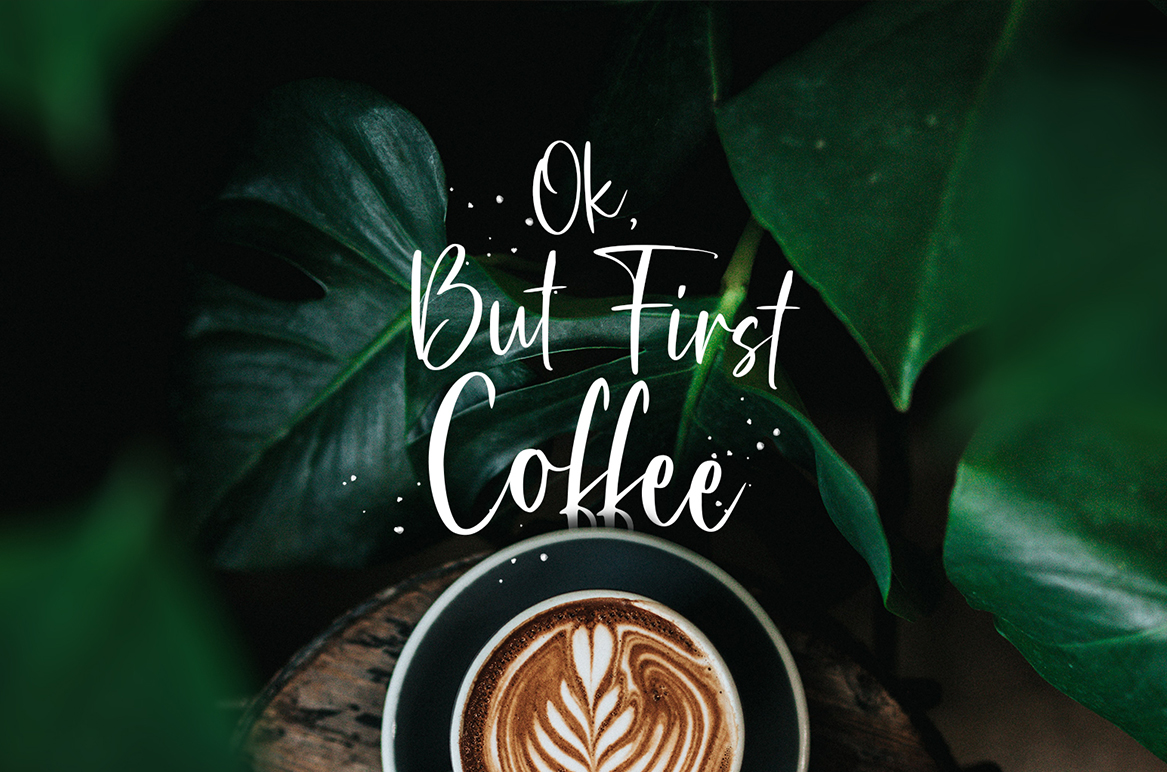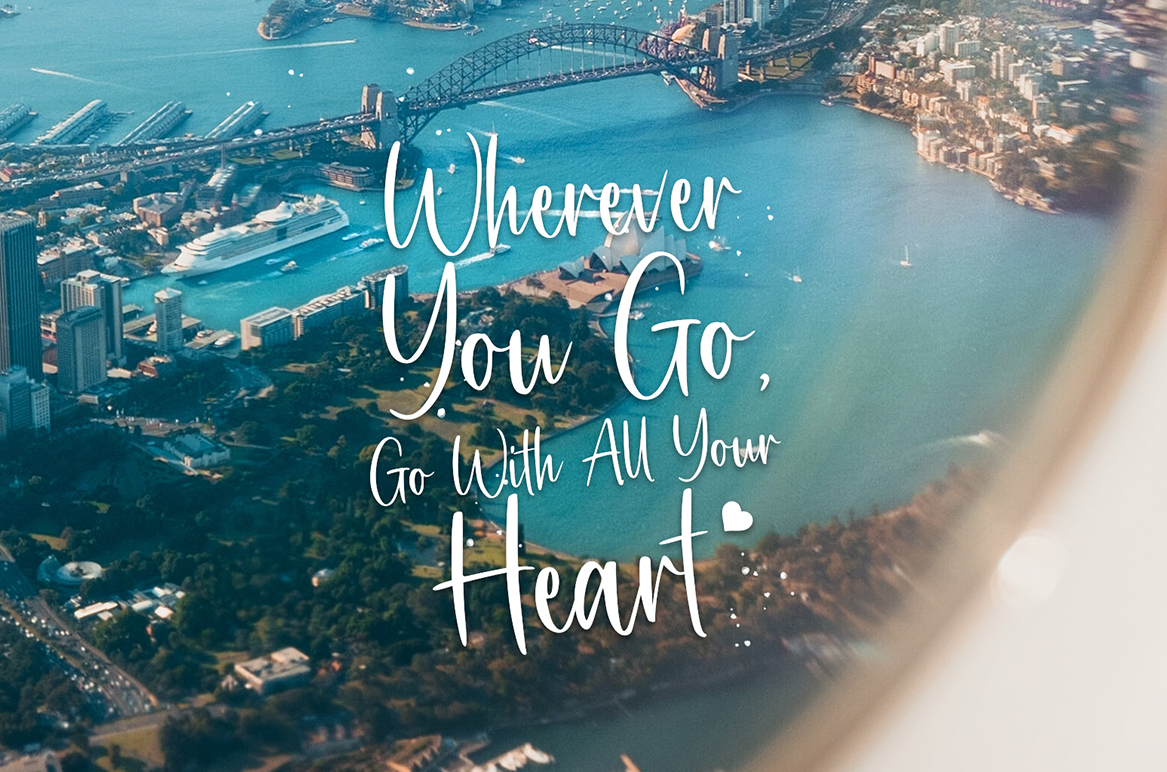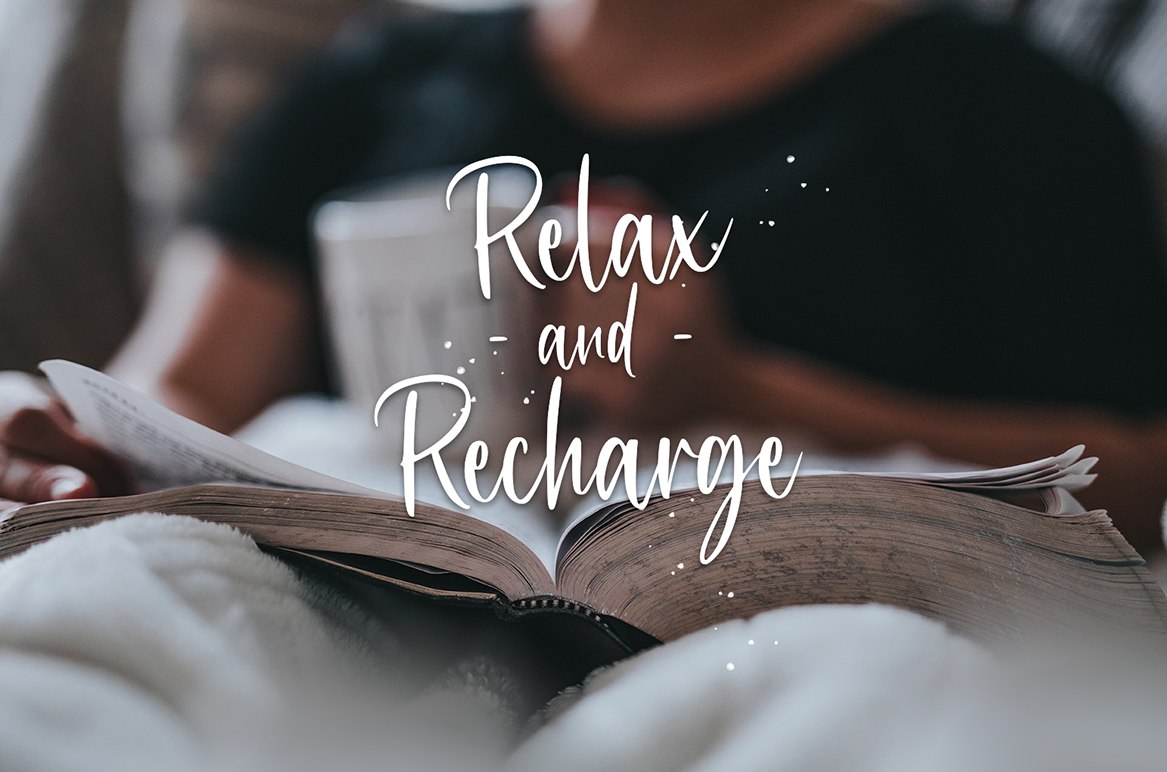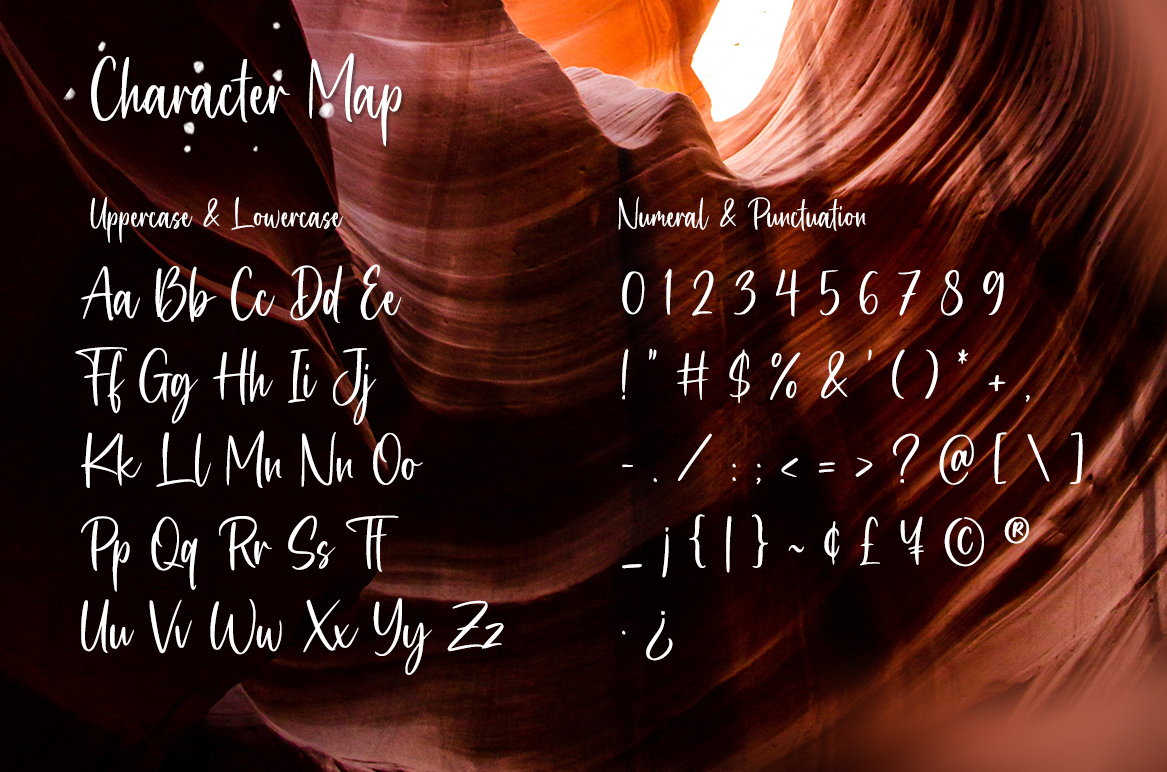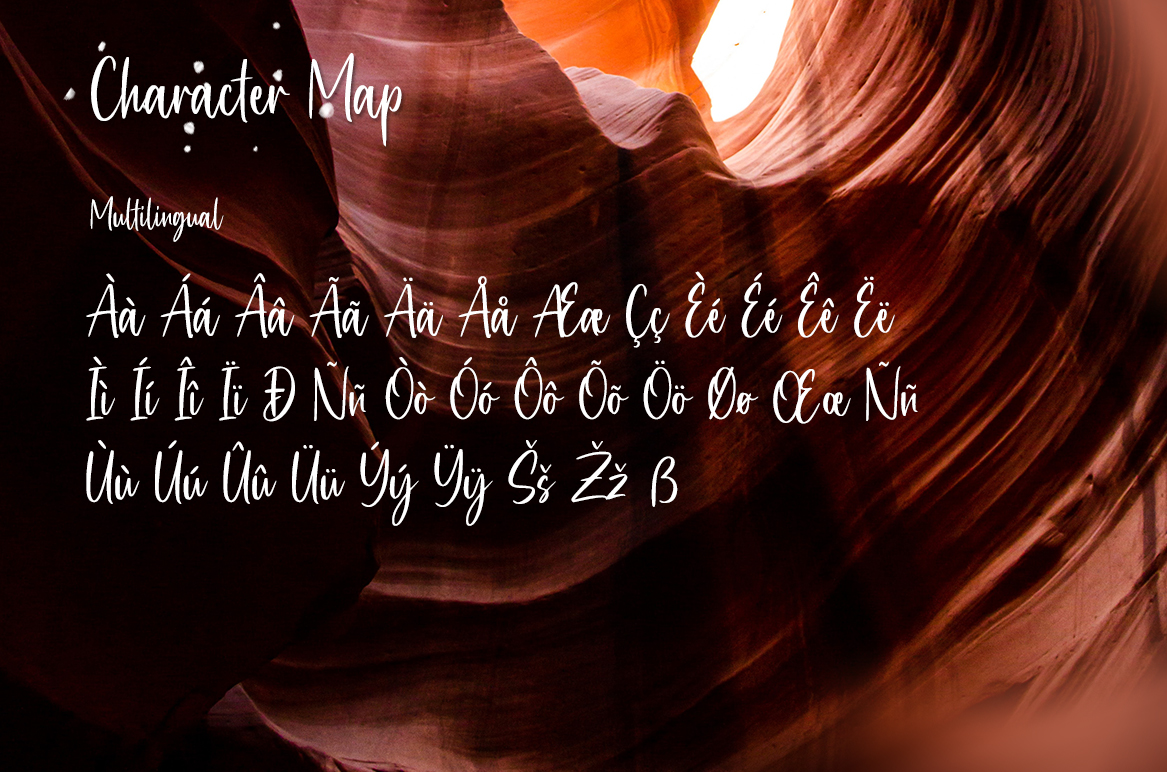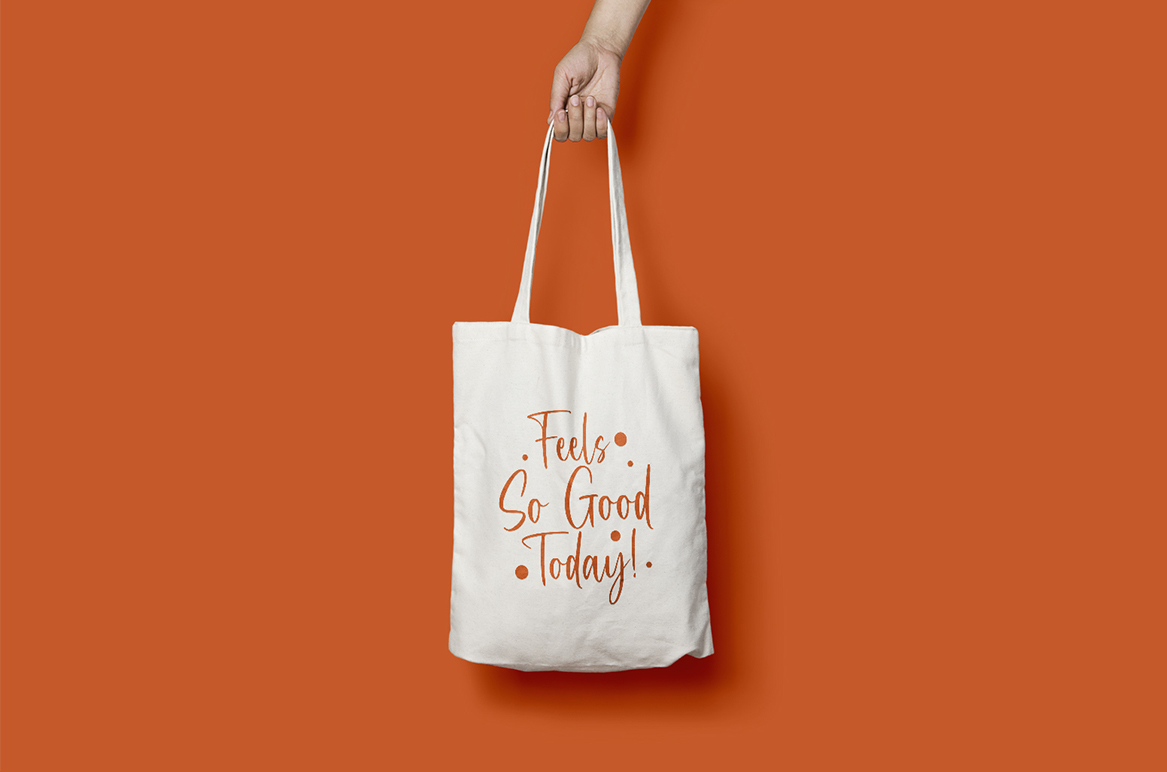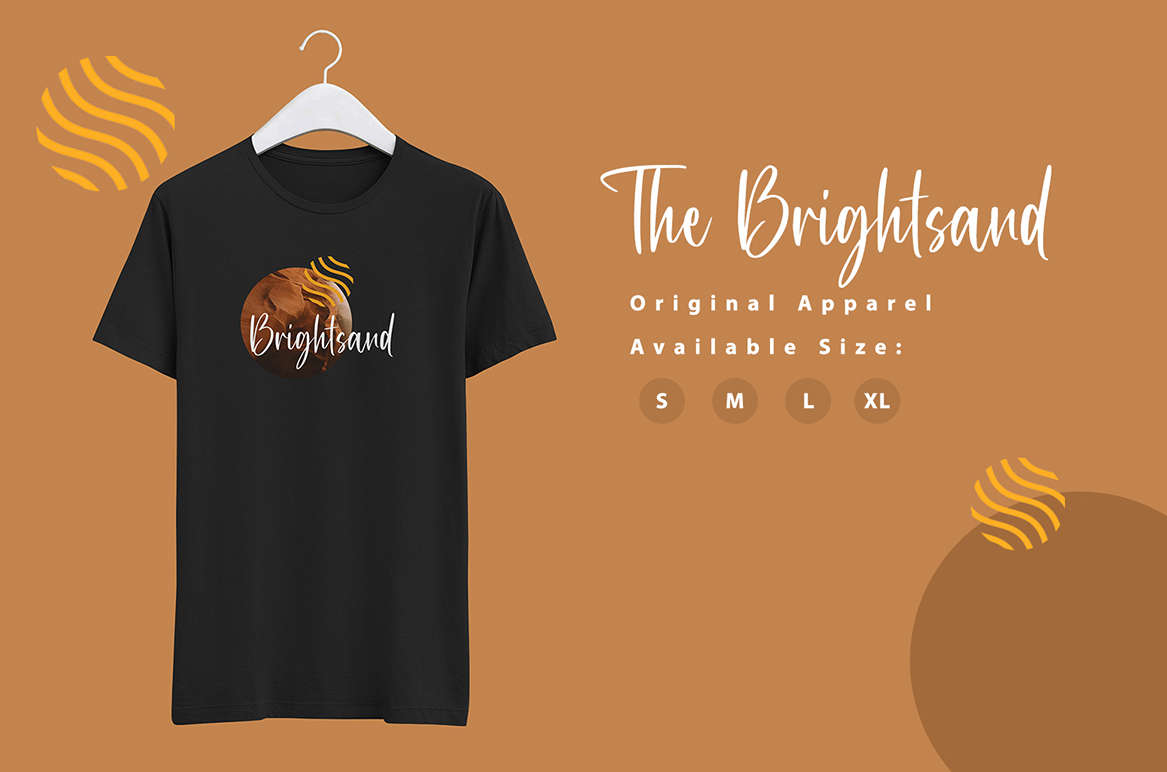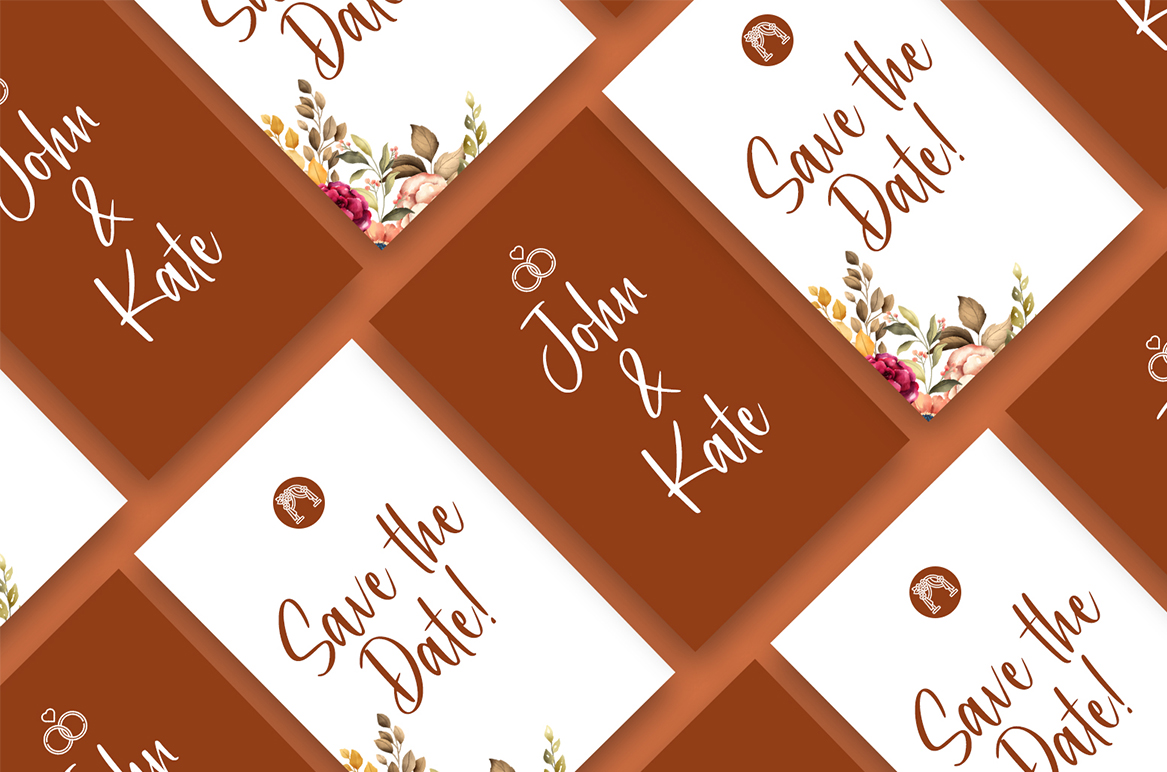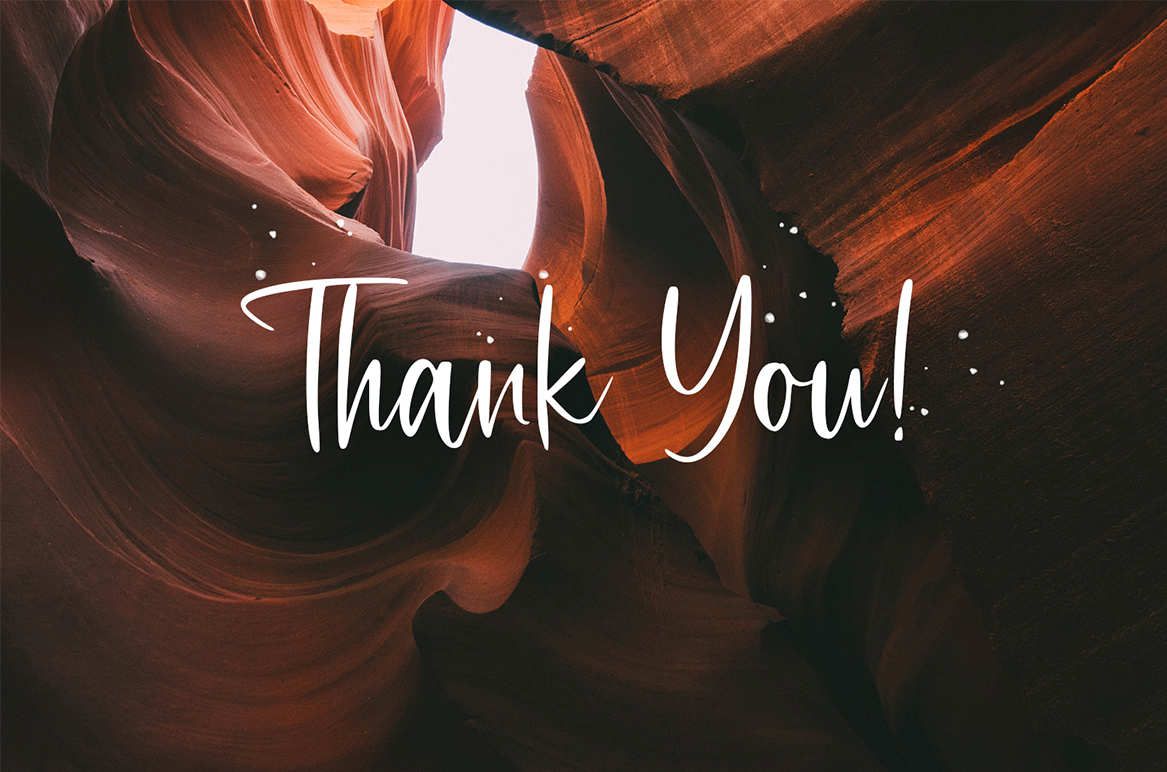
Brightsand - Calligraphy Font
Brightsand is a unique and elegant handwritten font with a personalized style. It looks beautiful across romantic, refined, and custom-feeling design projects.
Brightsand is a unique and elegant handwritten font with a personalized style. It looks beautiful across romantic, refined, and custom-feeling design projects. Use it for wedding invitations, thank you cards, greeting cards, logos, branding, stationery, and more.
Wedding invitations, thank you cards, greeting cards, logos, branding, stationery,